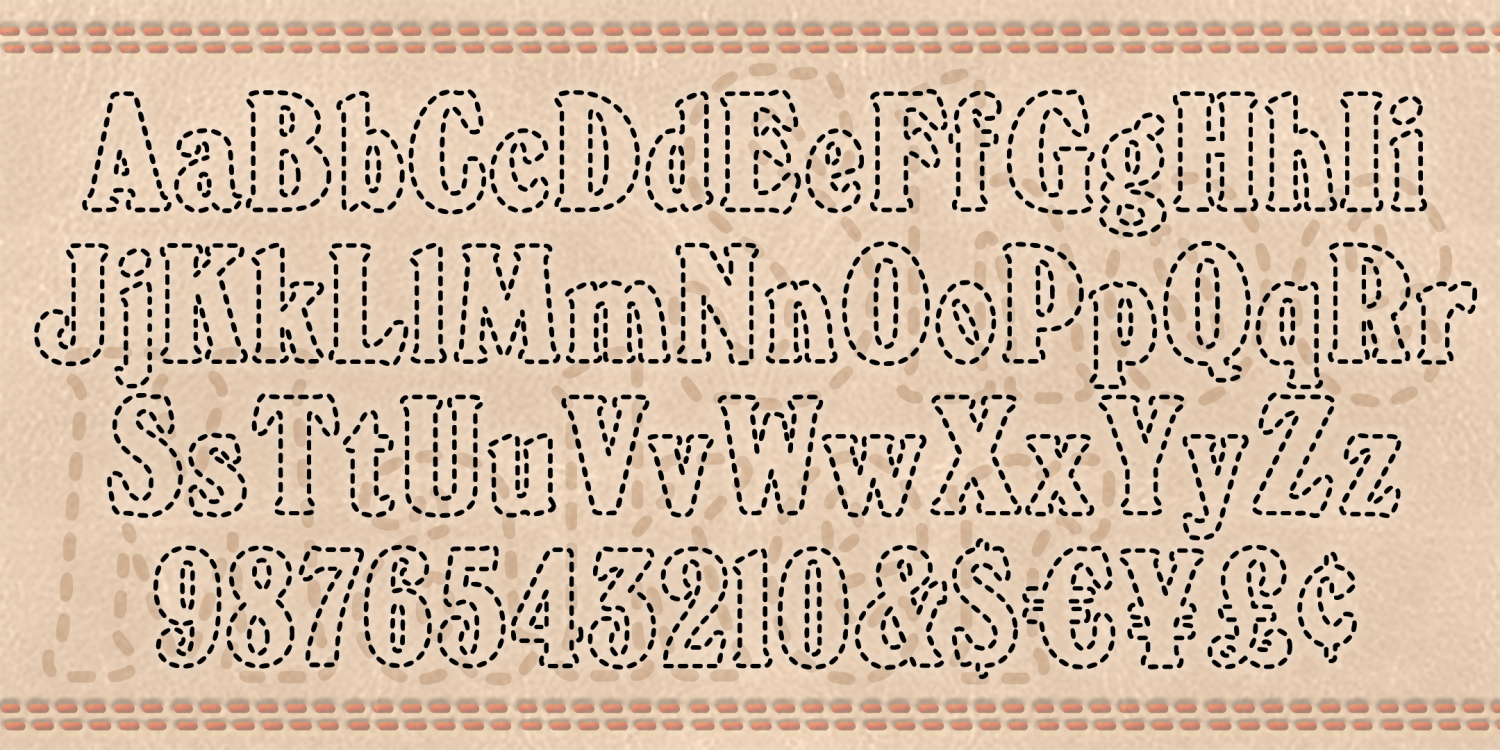
Shoemaker
SHOEMAKER is designed to look like top-stitched letters for a fun, friendly, hand-crafted look. The basic letterforms were inspired by the classic Windsor fonts, favored by Woody Allen (film titles) and Timberland (logo). Shoemaker also includes 11 dingbats from Harold's Pips, rendered in the same top-stitch style.
The Shoemaker font family includes 218 glyphs.